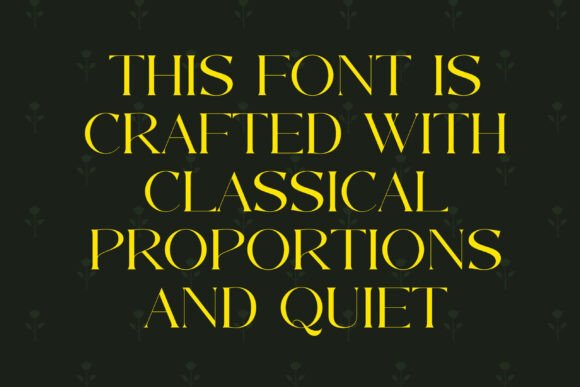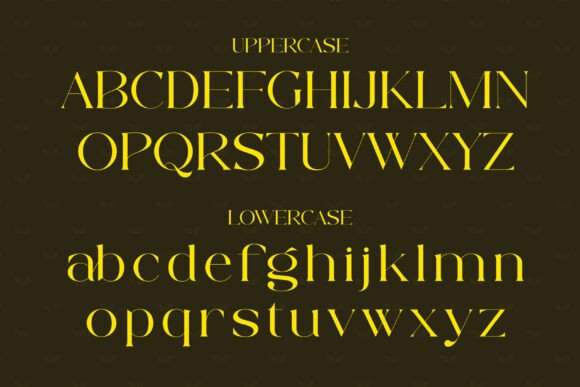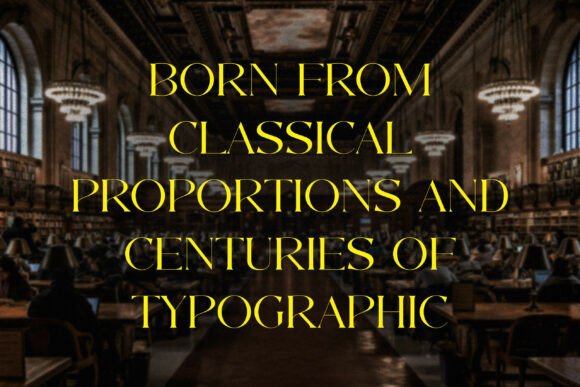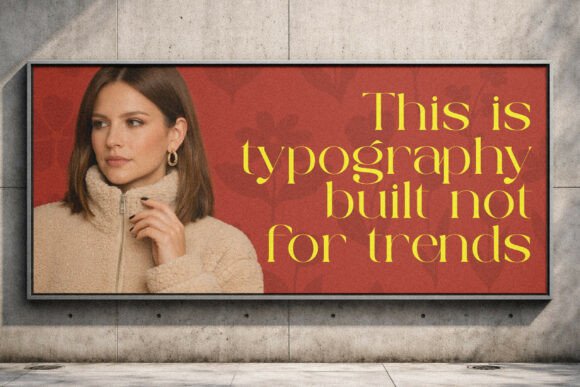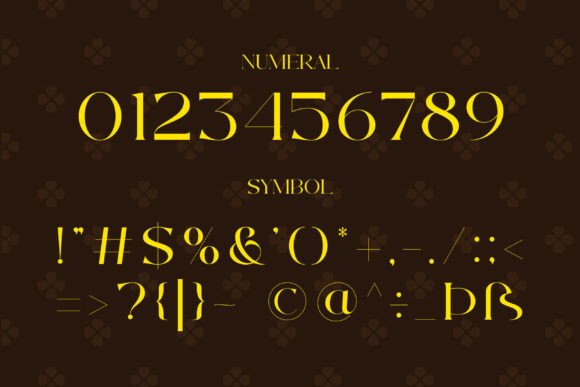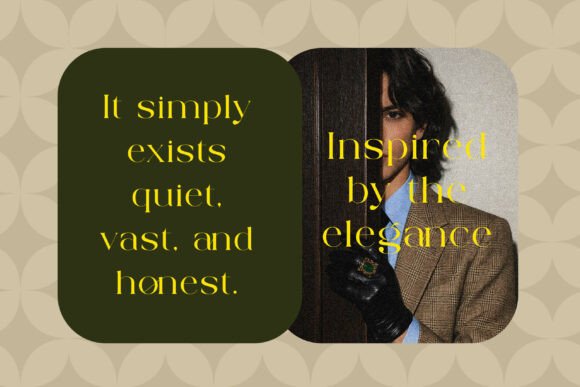
Introduction to Rakliton Font
Discover the perfect blend of vintage heritage and modern minimalist flair with Rakliton, a new classic serif font.
This typeface features a rhythmic silhouette defined by sharp, wedge-like serifs and clean, geometric lines Its sophisticated character is heightened by unique ligatures and artistic alternates, such as the distinctive, cross-bar “o,” which adds a touch of intellectual curiosity to your designs.
Key Features of Rakliton Font